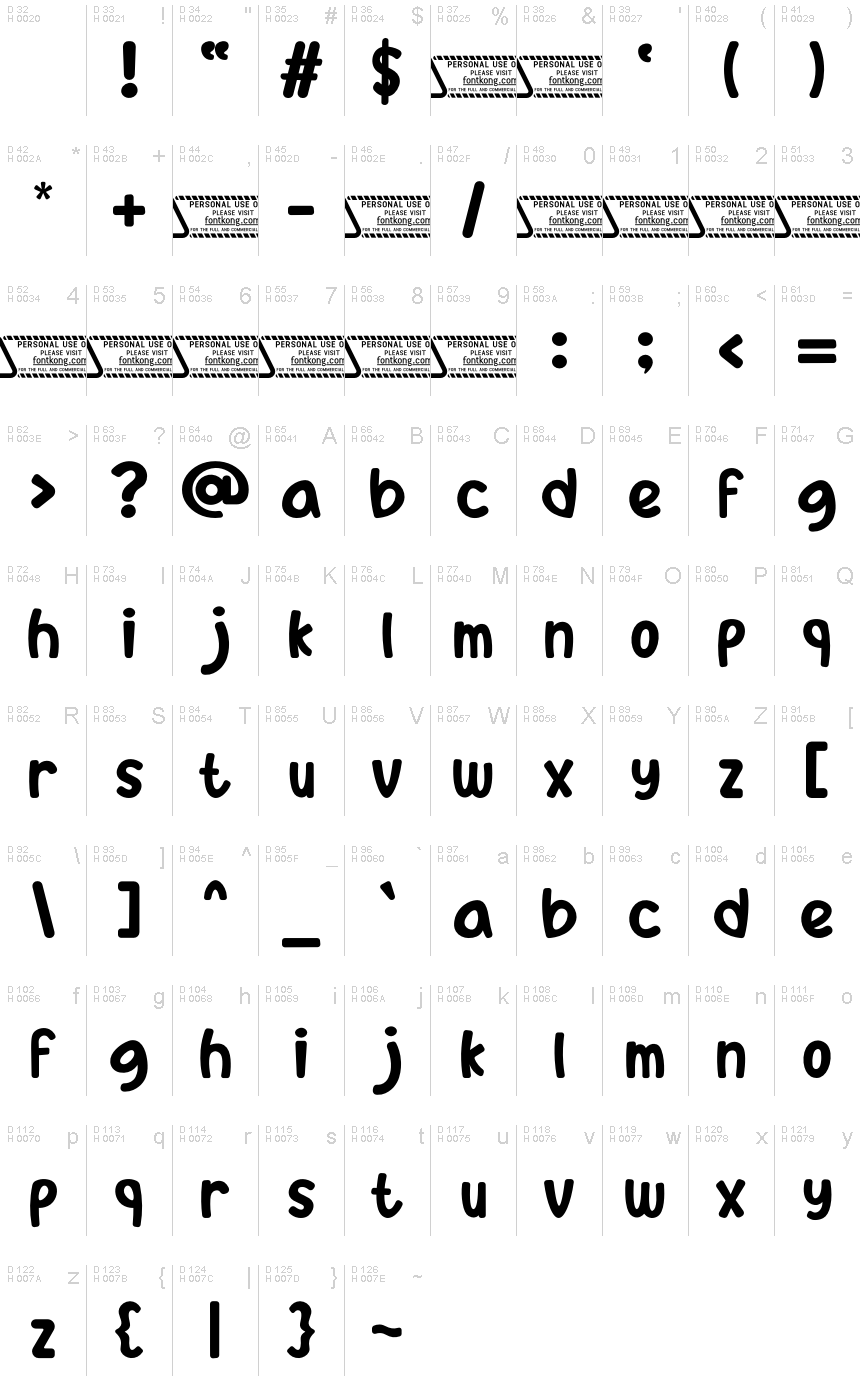
Kids Day font by Kong Font brings playful energy to your design. The free display font has a fun, casual, cartoon-style that’s friendly and informal. That gets reflected in the rounded bold letters made to appear childlike with low contrast strokes for an overall fresh look.
Use this typeface to get school kids excited about designed content, from customizable labels and product packaging used on candy and juices to educational printables. Other projects include signage, advertisements, stationery, logos, branding & identity projects and more.